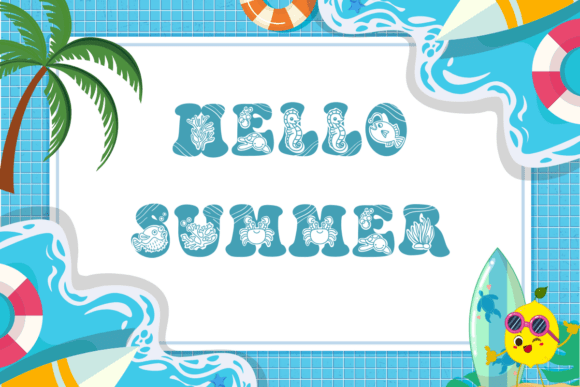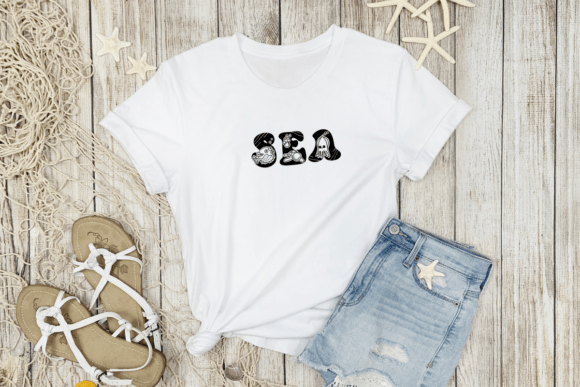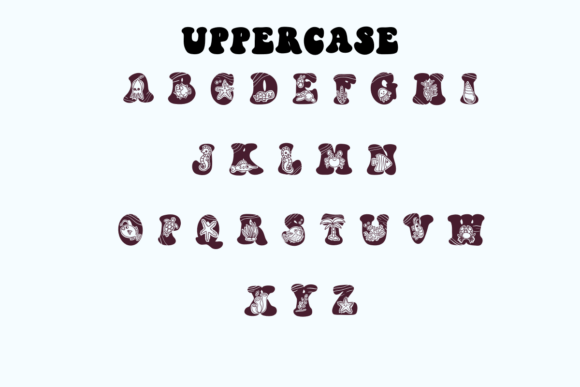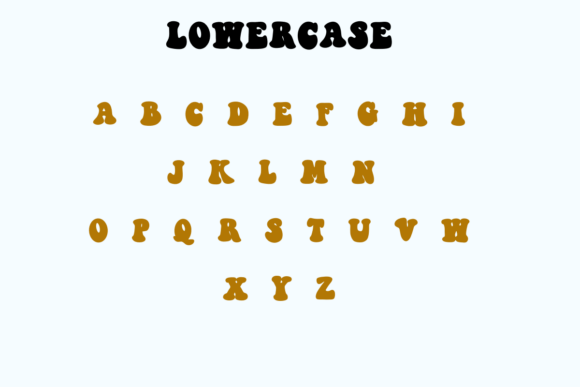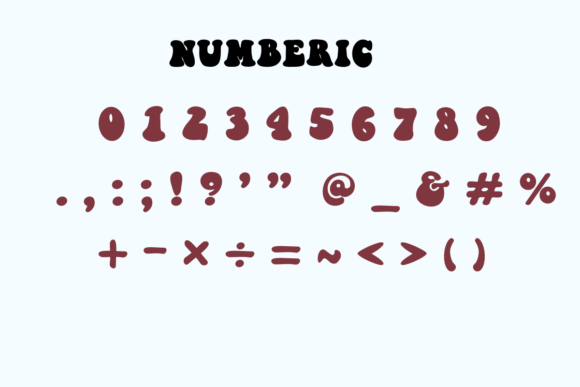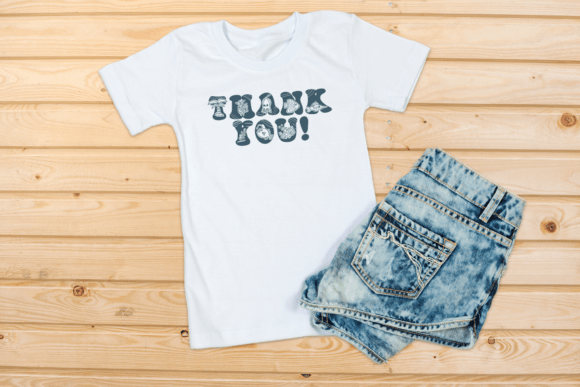
Introduction to Cute Sea Font
As a designer, there’s nothing quite like the thrill of bringing a creative project to life. The moment when a blank canvas transforms into a vibrant, whimsical world is pure magic. I still remember the time I stumbled upon a beautiful free download of a Cute Sea Font, and my heart skipped a beat. The bubble-style letters, adorned with friendly sea creatures and palm trees, instantly captured my imagination. It was love at first sight!
For designers like you and me, a high-quality design resource like Cute Sea Font is a treasure trove of inspiration. With its transparent background and customizable letters, the possibilities are endless. Whether you’re working on a nursery decor project, creating personalized beach towels, or designing a themed birthday banner, this font is sure to add a touch of coastal charm to your designs.
Key Features of Cute Sea Font
- High-quality, hand-drawn design suitable for various creative projects, such as invitations, posters, and digital art.
- Unique, whimsical characters and glyphs add a touch of playfulness to any design, making it perfect for children’s books, educational materials, and more.
- Perfect for designers and artists looking for a charming, seaside-inspired font to elevate their design projects.
Honest Review: Cute Sea Font
As a designer, I’m always on the lookout for unique and high-quality design resources to elevate my creative projects. Recently, I stumbled upon the Cute Sea Font, and I must say, it’s been a game-changer.
What works well: ✨ The font is incredibly versatile, suitable for a wide range of design applications, from digital to print. The playful, hand-drawn style is perfect for creating eye-catching graphics, logos, and even typography-based designs. The font is also available for free download, making it an excellent resource for designers on a budget.
The font comes with a transparent background, allowing for seamless integration with any design. I’ve used it for a variety of projects, from social media graphics to business cards, and the results have been impressive.
What doesn’t work well: ⚠️ The font is not suitable for formal or professional projects, as the playful style may not convey the desired level of sophistication. Additionally, the font is not as extensive as some other font families, with a limited character set.
Overall, I’m thoroughly impressed with the Cute Sea Font. It’s a fantastic addition to any designer’s toolkit, and I highly recommend it for creative projects that require a touch of whimsy and personality.
- High-quality, versatile font
- Not suitable for formal or professional projects
- Limited character set
Cute Sea Font
Cute Sea Font is a free design resource perfect for any creative project that needs a touch of whimsy and playfulness. This high-quality font features a transparent background, making it easy to integrate into your designs.
Tips for Getting the Most Out of Cute Sea Font
To get the most out of Cute Sea Font, try using it in combination with other design elements, such as bright colors and playful graphics. You can also experiment with different font sizes and styles to create a unique look.
Cute Sea Font is perfect for a variety of creative projects, including:
- Children’s book illustrations
- Party invitations and decorations
- Food and beverage branding
- Stationery and greeting cards